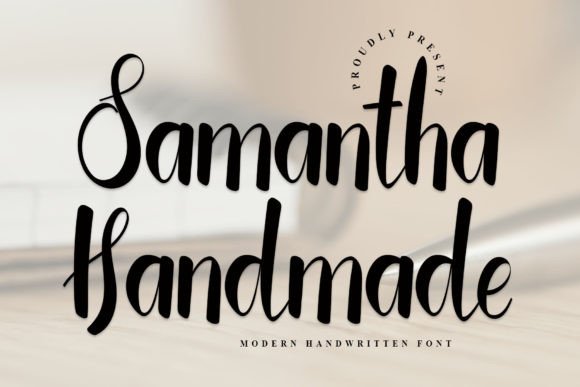
Welcome to the enchanting realm of Samantha Handmade Font, where creativity meets elegance. This captivating script font, a creation of PiPi Creative, is a testament to the beauty of handwritten art. With its distinctive and timeless style, Samantha Handmade unlocks a world of design possibilities just waiting to be explored.
Prepare to be entranced by its delicate strokes and graceful curves, exuding an air of sophistication and charm. Samantha Handmade is the perfect companion for those seeking to add a personal touch to their projects, whether it be heartfelt letters, stunning invitations, eye-catching branding, or captivating social media designs. Its versatility knows no bounds.
Journey into the depths of Samantha Handmade's timeless appeal, where every letter dances across the page with a unique personality. This font is not just a tool; it's an extension of your creativity, allowing you to express your thoughts and ideas with an elegance that's sure to leave a lasting impression.
With Samantha Handmade, you have the power to transform ordinary designs into extraordinary masterpieces. Its ability to effortlessly elevate your projects will leave you in awe. Experience the magic of this script font as it breathes life into your creations, making them stand out from the crowd with a touch of sophistication and charm.
Don't settle for ordinary fonts that fail to capture the essence of your artistry. Samantha Handmade is the key to unlocking your creative potential, empowering you to weave captivating designs that tell a story and evoke emotions. Embrace the beauty of handwritten elegance and let Samantha Handmade guide you toward design greatness.